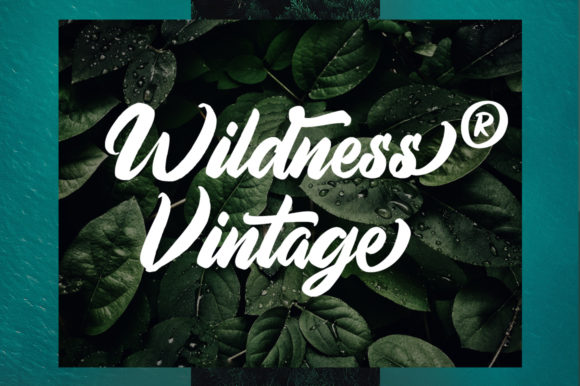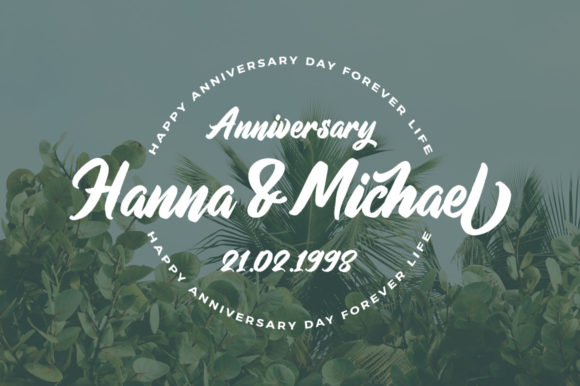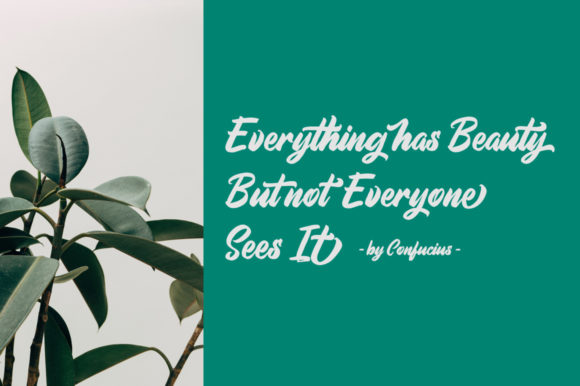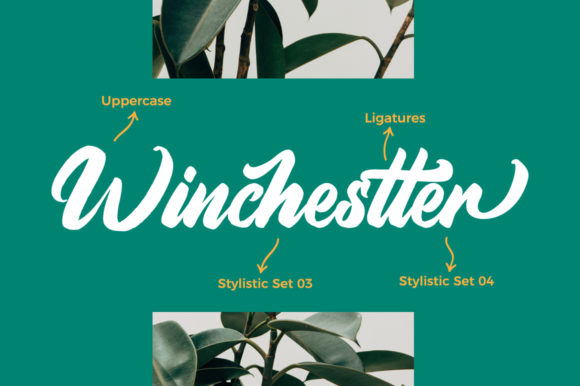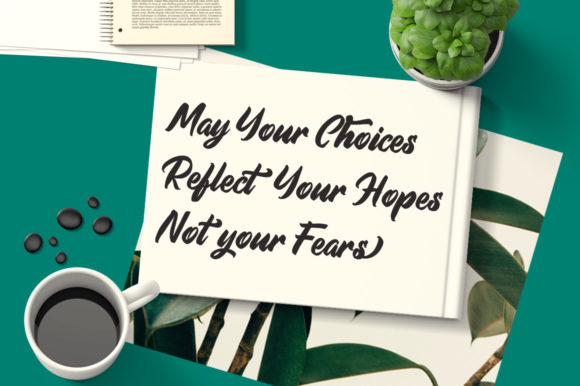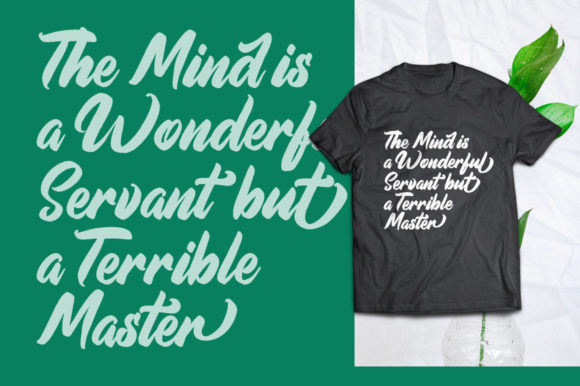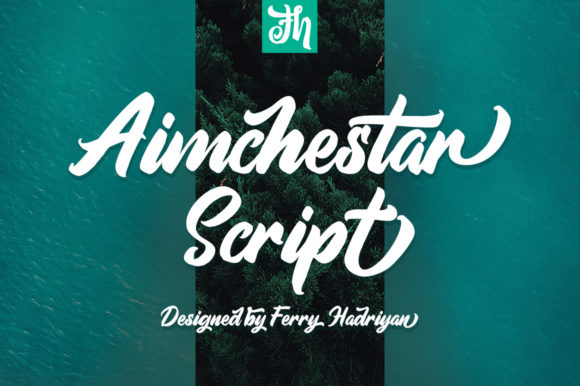
Aimchestar Script Font: Elevate Your Designs with a Unique and Modern Style
In the world of typography, fonts play a crucial role in conveying the tone and personality of a design. For designers and crafters looking to add a touch of modernity and casual elegance to their projects, the Aimchestar Script Font is an excellent choice. This unique and casual handwritten font is perfectly suited for a wide variety of designs, making it a versatile addition to any creative arsenal.
What is Aimchestar Script Font?
Aimchestar Script Font is a modern script font that boasts a distinctive and stylish appearance. Its casual handwritten style gives it a friendly and approachable feel, making it ideal for designs that require a personal touch. The font’s unique characteristics, such as its flowing lines and carefully crafted letterforms, set it apart from more traditional fonts and make it perfect for designers looking to create something truly special.
Key Features of Aimchestar Script Font
- Unique and Casual Style: Aimchestar Script Font features a one-of-a-kind design that is both casual and stylish, making it perfect for a wide range of design applications.
- Modern Aesthetic: The font’s modern style ensures that it will complement even the most contemporary designs, from branding and packaging to digital media and more.
- Handwritten Appearance: The handwritten nature of Aimchestar Script Font gives it a personal and friendly feel, making it ideal for designs that require a touch of warmth and approachability.
- Versatility: This font is incredibly versatile and can be used for a variety of design projects, including but not limited to, logos, social media graphics, posters, and invitations.
Uses of Aimchestar Script Font
The versatility of Aimchestar Script Font makes it suitable for a multitude of design projects. Here are some of the most popular uses:
- Branding and Logo Design: Create a memorable brand identity with a unique logo that stands out from the competition.
- Social Media Graphics: Elevate your social media presence with stylish and engaging graphics that reflect your personality or brand.
- Posters and Flyers: Add a touch of elegance and modernity to your promotional materials.
- Invitations and Cards: Make your invitations, greeting cards, and thank you cards more personal and special.
- Packaging Design: Stand out on store shelves with eye-catching packaging that reflects your brand’s personality.
Why Choose Aimchestar Script Font?
Choosing the right font for your design project can be a daunting task, but Aimchestar Script Font offers several compelling reasons to make it your top choice:
- Uniqueness: In a sea of generic fonts, Aimchestar Script Font offers a breath of fresh air with its unique and distinctive style.
- Readability: Despite its stylized appearance, the font maintains excellent readability, ensuring that your message is conveyed clearly.
- Customization: The font can be easily customized to fit your project’s specific needs, allowing for endless creative possibilities.
Aimchestar Script Font is a game-changer for designers and crafters looking to infuse their projects with a modern, casual, and unique style. Its versatility, readability, and distinctive appearance make it an invaluable tool in any creative’s toolkit. Whether you’re working on a branding project, creating social media content, or designing promotional materials, Aimchestar Script Font is sure to elevate your designs to new heights. So why settle for ordinary when you can create something truly extraordinary with Aimchestar Script Font?
Embrace the power of unique typography and take your designs to the next level with Aimchestar Script Font. Explore its creative possibilities today and discover why it’s quickly becoming a favorite among designers and crafters alike.